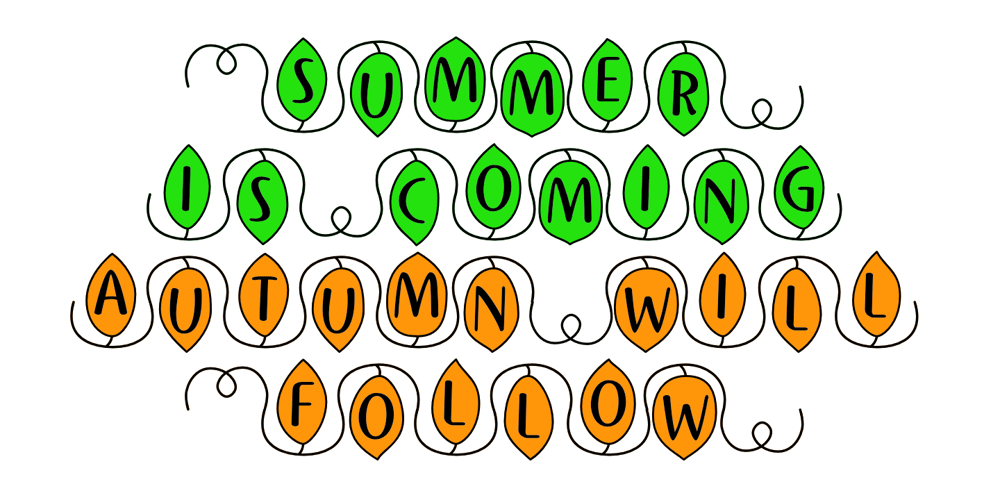
Vinetters Font Family was designed by Robert Schenk and published by Ingrimayne Type. Vinetters contains 2 styles and family package options. Vinetters has letters on the alternating leaves of a vine. It is monospaced and uses the OpenType contextual alternatives (calt) feature to alternate leaves as the vine snakes its way across the page, putting leaves with the base down between leaves with the base up. The family has two styles, one with transparent leaves and the other with solid leaves, and these two styles can be used in layers to add color. The family has a large set of accented characters but omits some symbols that are used primarily in technical text. Spaces between words can be left blank or filled with connecting vine using the brackets, trademark-infinity, doubledagger-summation, radical-approximatelyequal, or fi-fl characters. The characters on the leaves are derived from the typeface IngrianaCasual.Topics for which using Vinetters may be appropriate include trees, plants, leaves, nature, changing seasons, and outdoor life.